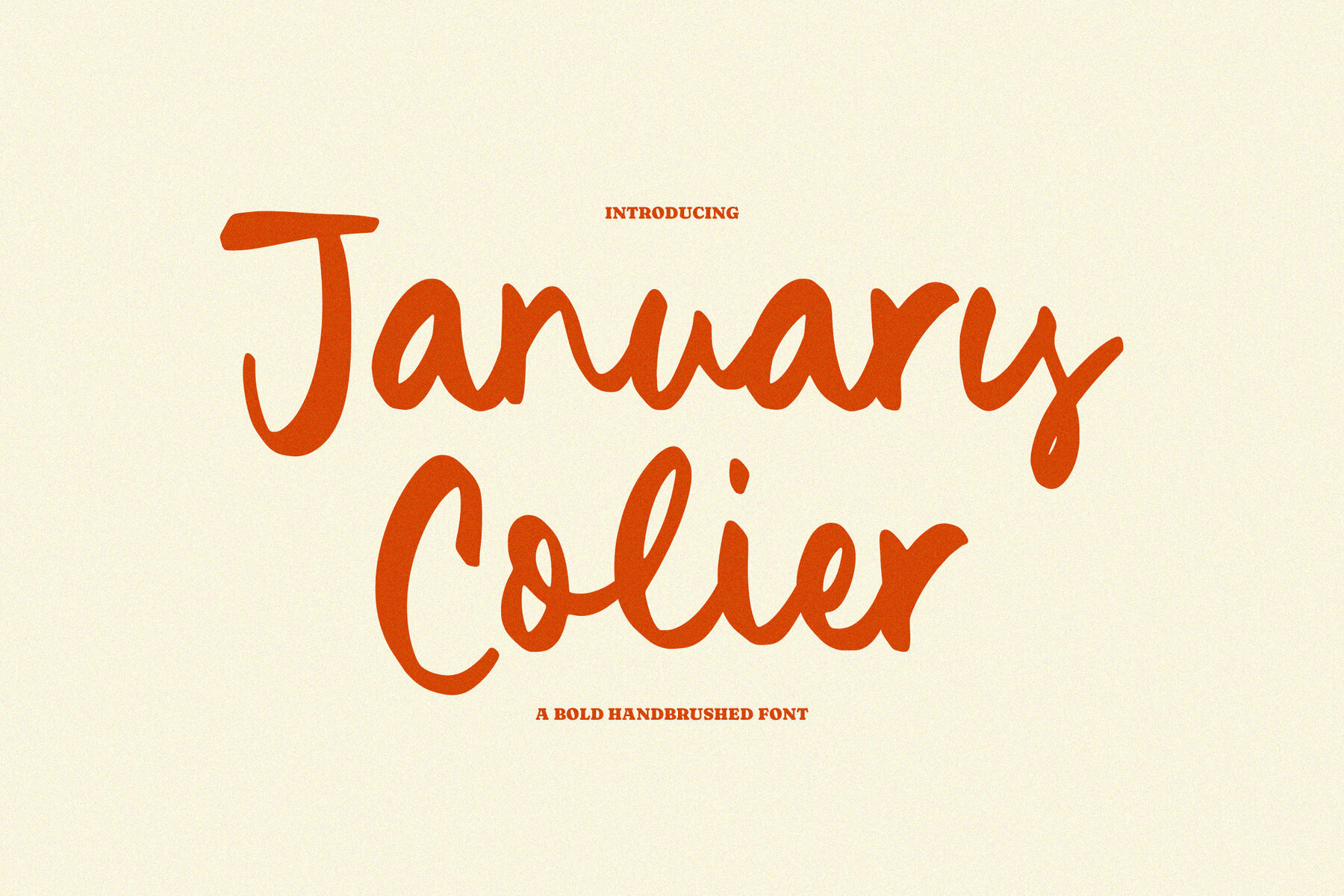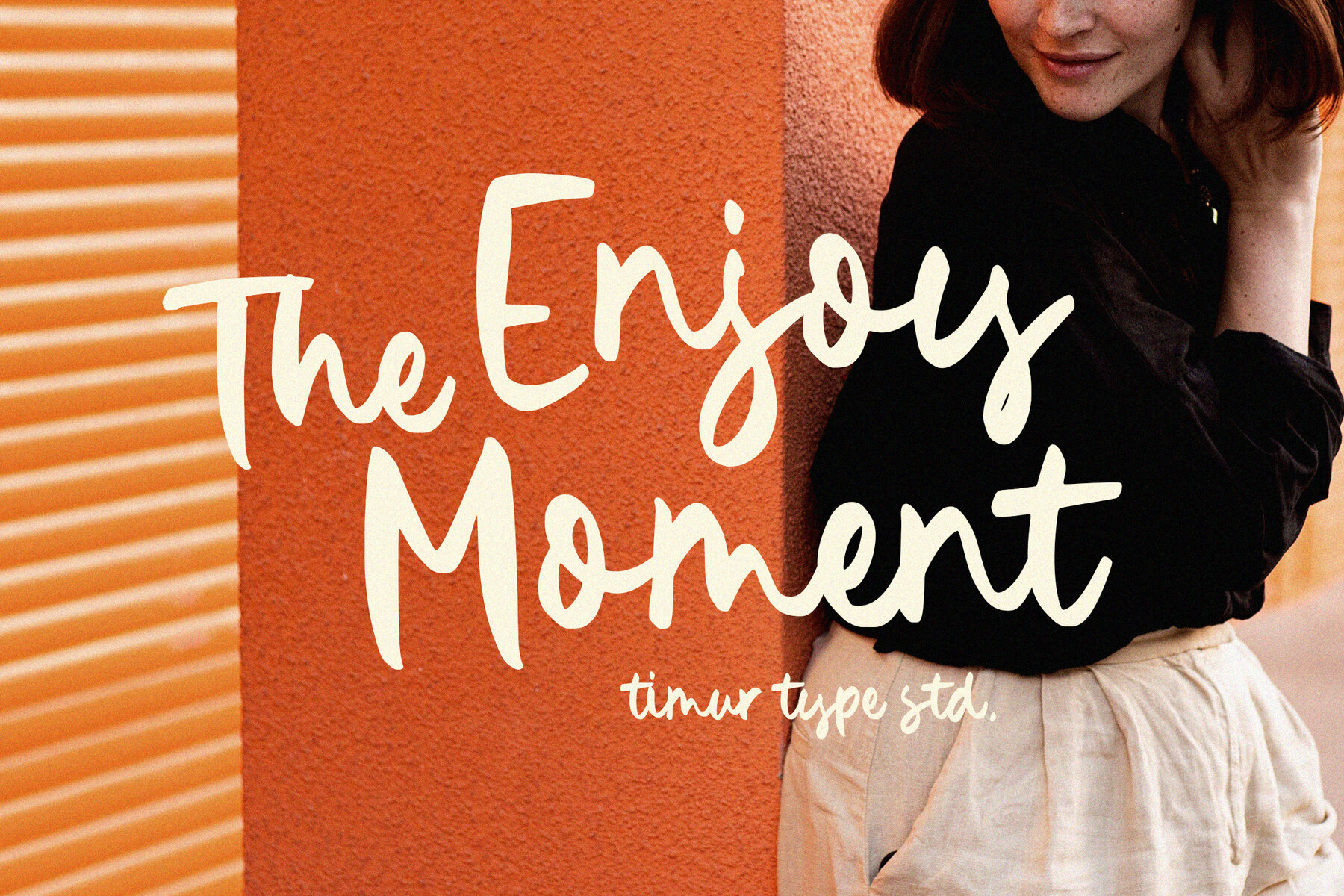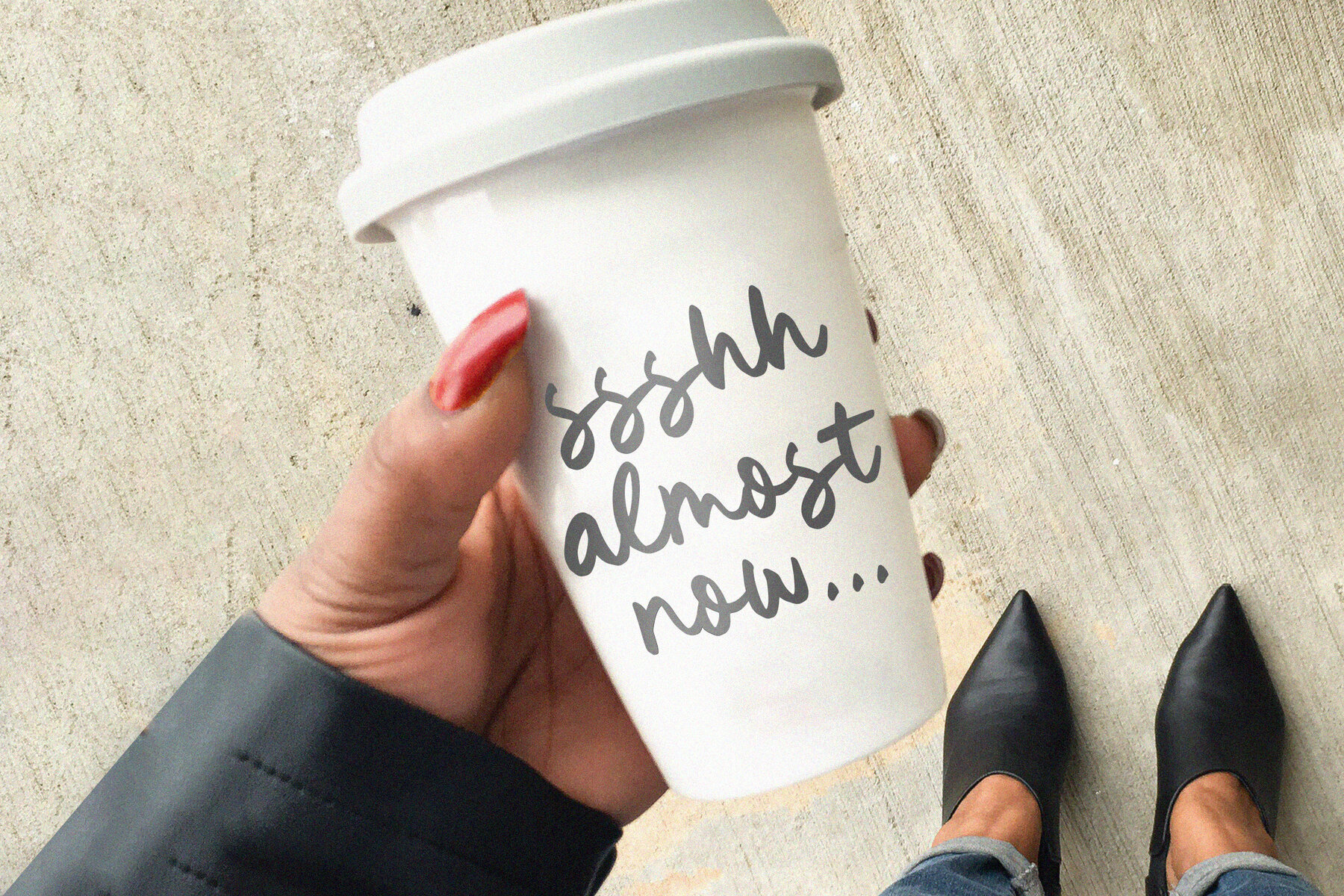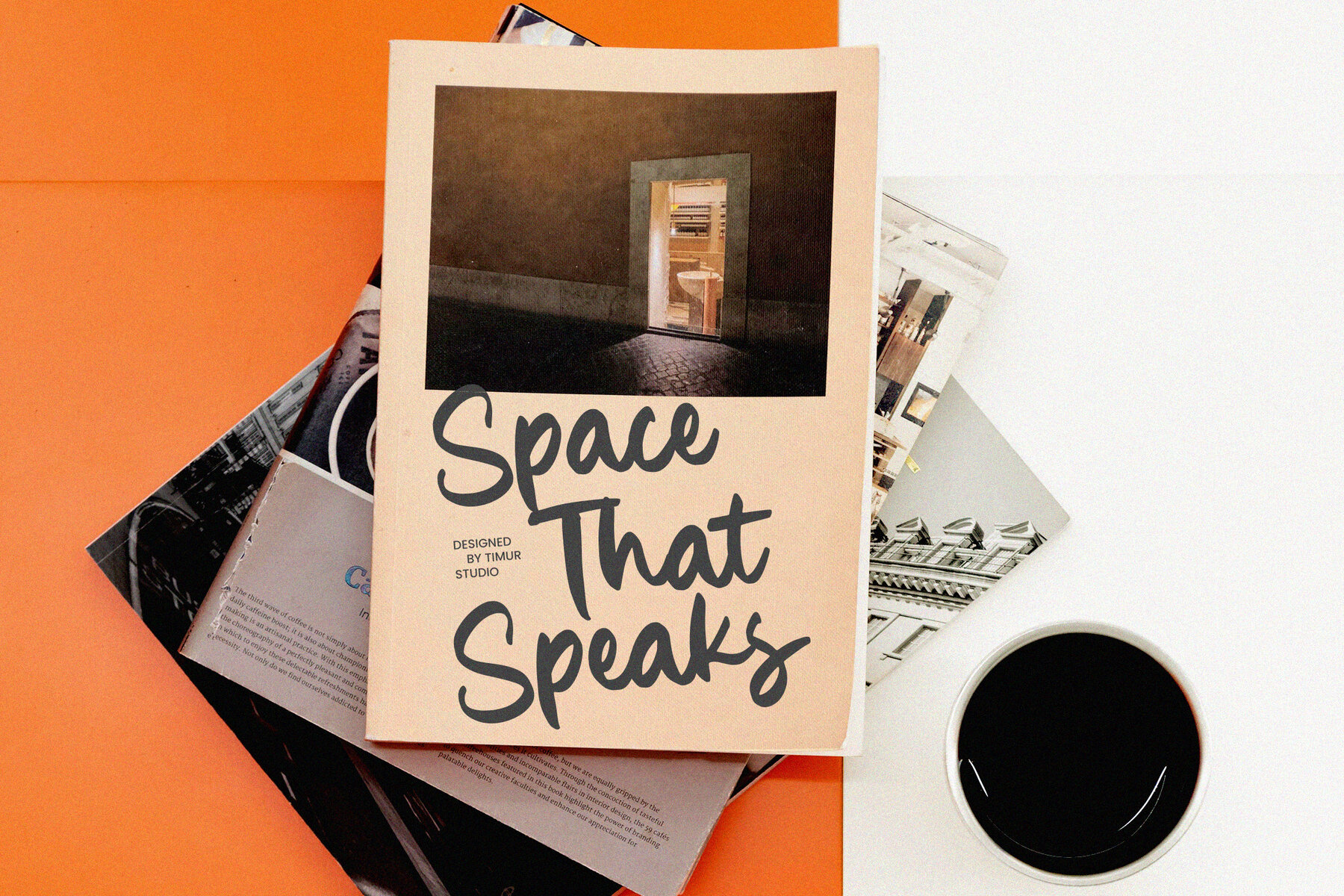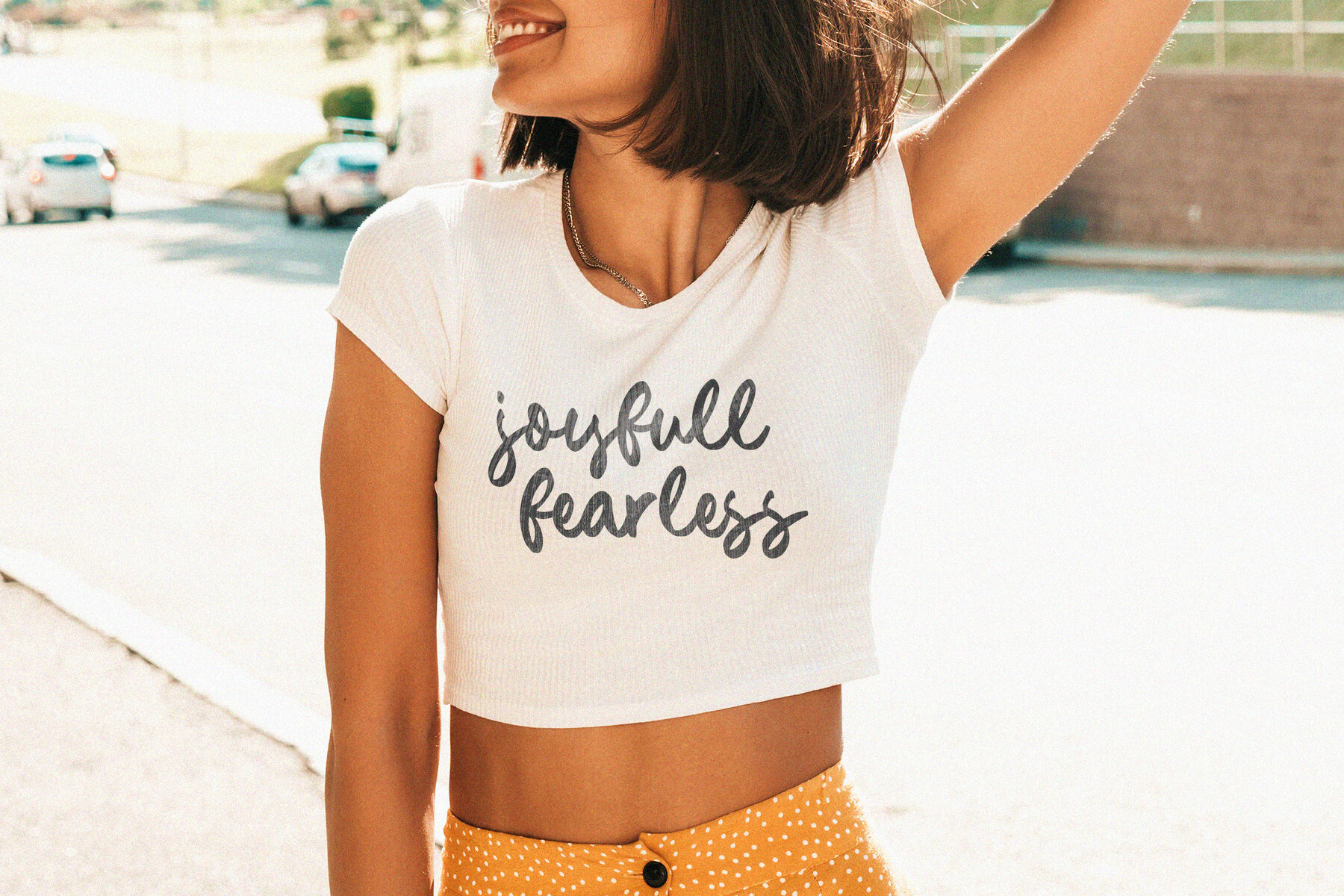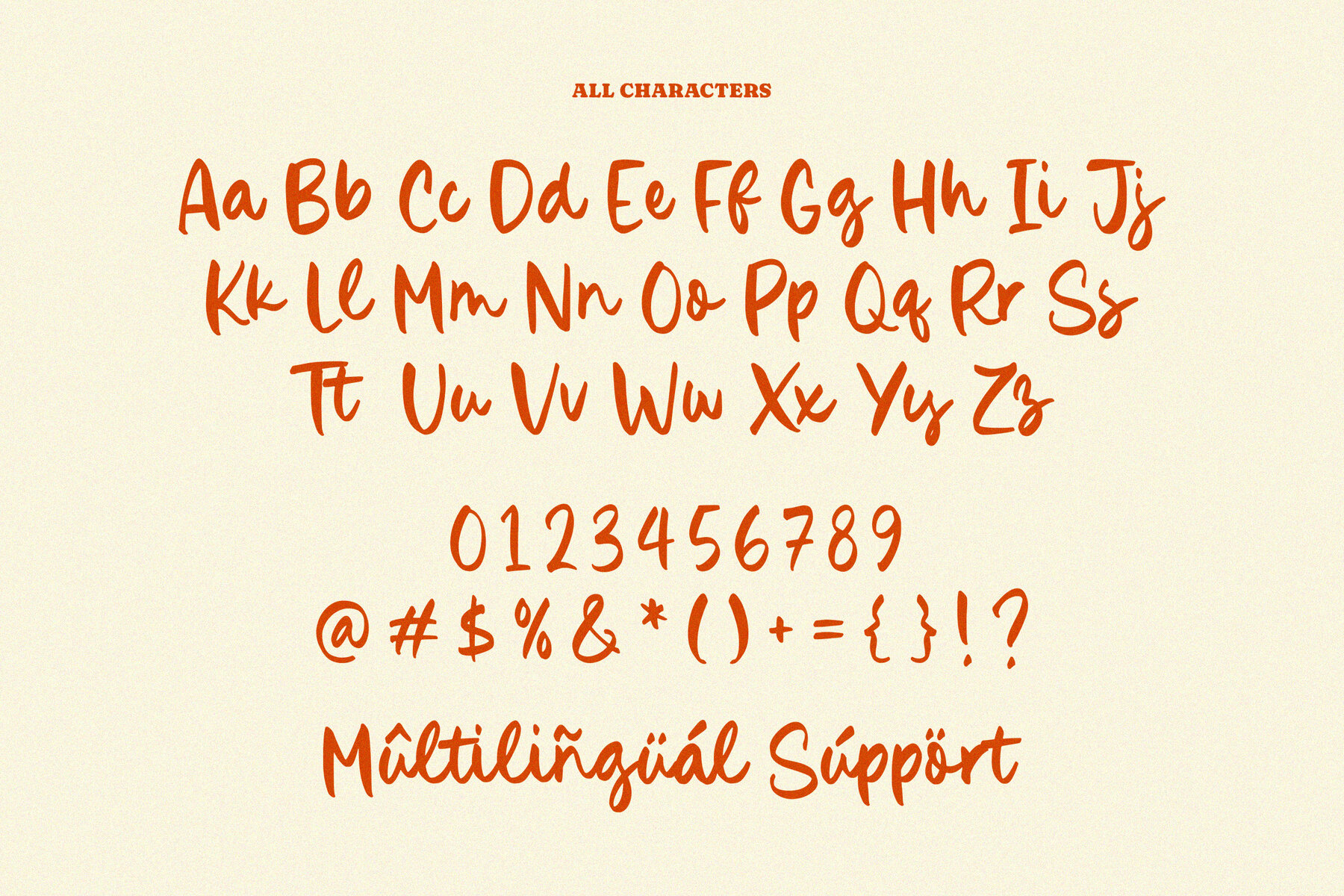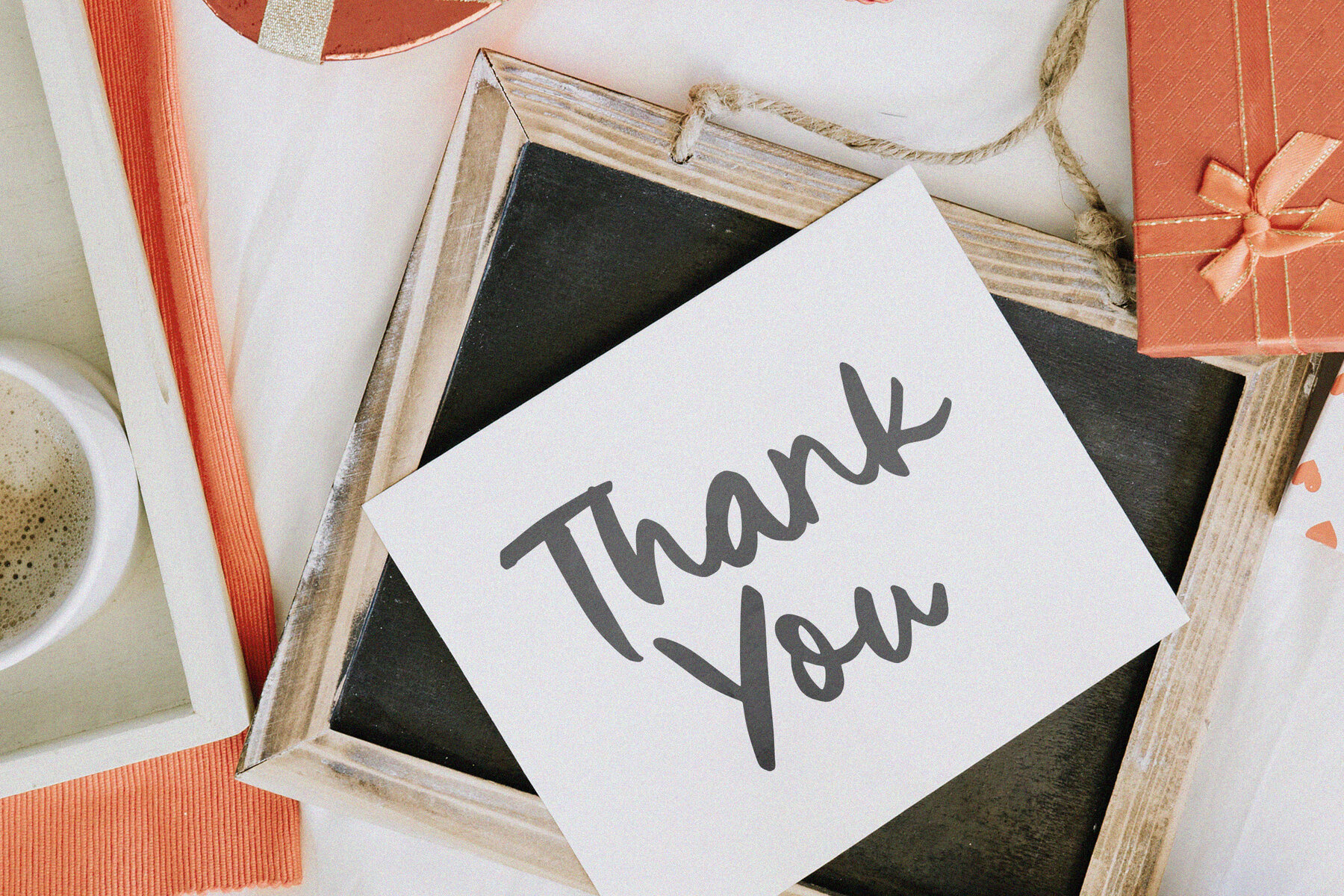
January Colier Font
January Colier
January Colier stands out with its bold, hand-brushed flair, offering a unique blend of modern edge and handcrafted charm. Its expressive strokes and organic flow capture the raw energy of brush lettering, ideal for crafting stunning headlines, creative branding, and artistic posters. This font infuses any project with a touch of bold elegance, drawing attention with every letter.January Colier: Bold Handbrushed Font